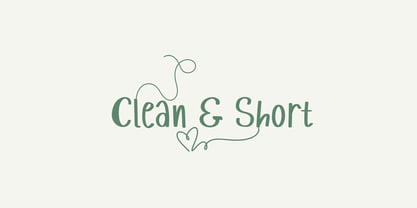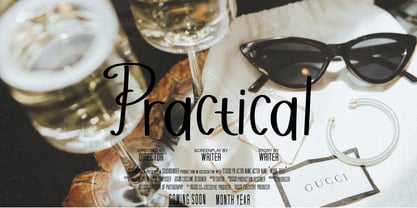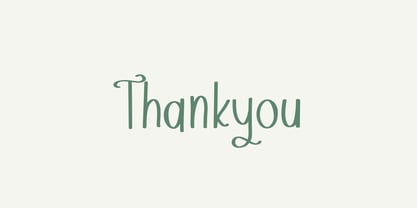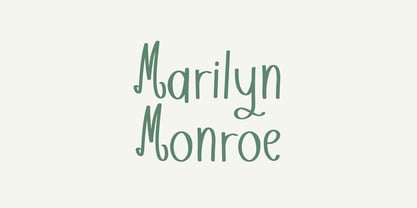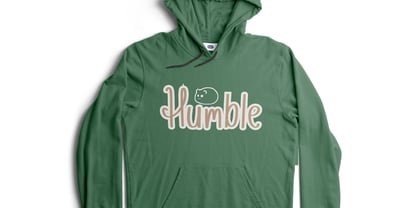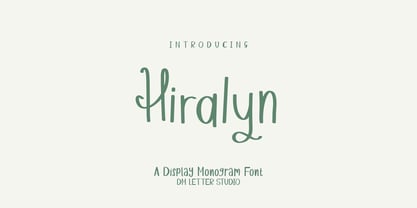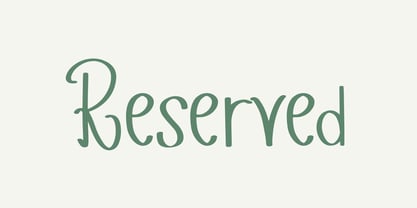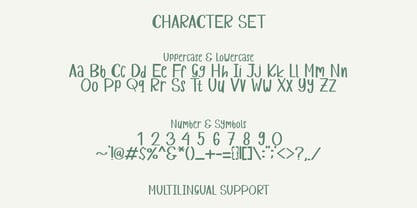
Hiralyn
La familia tipográfica Hiralyn fue diseñada por Dimas Prasetyo y publicada por DM Studio. Hiralyn contiene 1 estilos. Más información sobre esta familia
Hiralyn – Elegant Handwritten Font with Signature Style Hiralyn is a graceful handwritten font with a modern signature feel. Inspired by flowing ink and calligraphic penmanship, this typeface captures elegance in every stroke. With its thin lines, natural movement, and stylish curves, Hiralyn is perfect for branding, quotes, product packaging, invitations, and digital projects that call for a personal, classy touch. The letterforms are crafted to look effortlessly handwritten—ideal for beauty brands, wedding logos, fashion lookbooks, or motivational quotes shared on Instagram. Whether you're designing social media content, crafting planner printables, or building a logo with a handwritten vibe, Hiralyn gives your message a refined and professional look. Each character includes smooth transitions and realistic ligatures, making it feel genuinely penned rather than constructed. Its minimalist, high-contrast flow is well-suited to both large, impactful headers and smaller body text when elegance is key. The font includes A–Z uppercase and lowercase letters, numerals, punctuation, and full multilingual support, so you can confidently use it in both English and international projects. Hiralyn is easy to install and compatible with Mac and Windows. You can use it seamlessly in Canva, Adobe Illustrator, Photoshop, Procreate, and cutting machine software like Cricut and Silhouette Studio. If you're after a font that speaks luxury, personality, and handcrafted charm—Hiralyn delivers the perfect balance of beauty and function. Features: Signature Handwritten Style: Elegant and flowing like real handwriting. Perfect for Branding & Social Media: Ideal for logos, quotes, planners, and packaging. Realistic Ink Feel: Smooth strokes and stylish ligatures create natural flow. Complete Character Set: Uppercase, lowercase, numerals, punctuation, and multilingual support. Easy to Use: Works on Mac and Windows, fully compatible with design software.